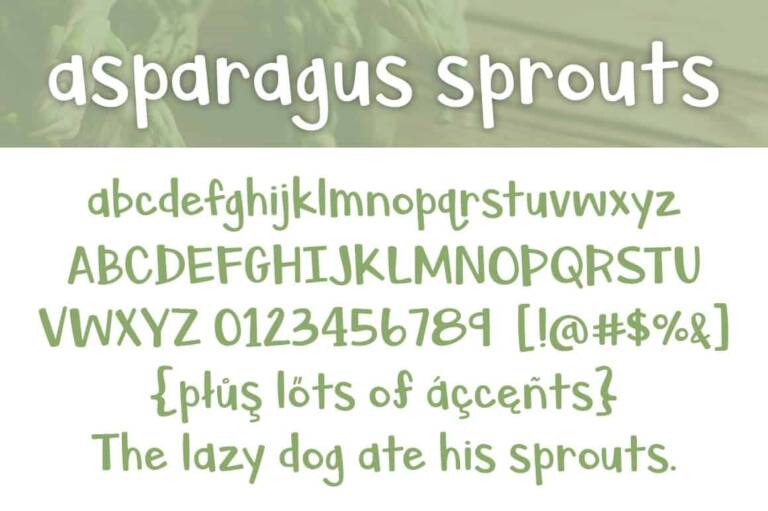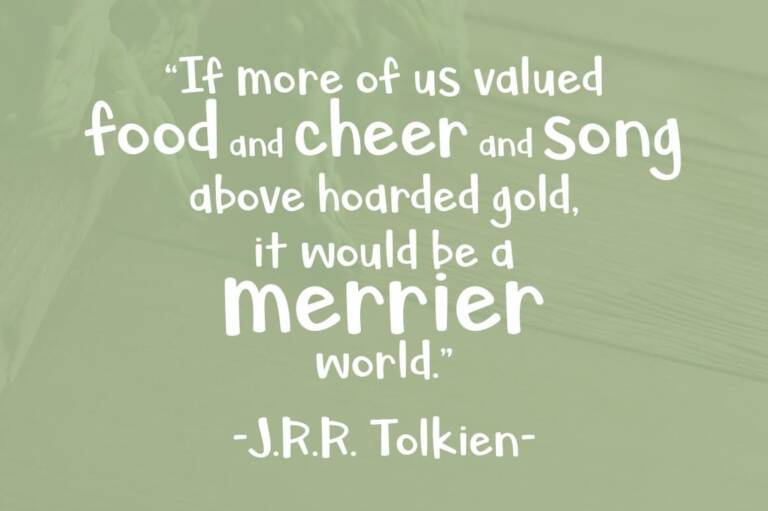
Asparagus Sprouts Font
About The Asparagus Sprouts Font
The Asparagus Sprouts font is a playful handwritten sans-serif font with varying stroke weights created in 2017 by Brittney Murphy Design. With 356 characters Asparagus Sprouts supports most Latin-based languages. This font is great for giving a fun, cartoon feeling to your graphic design projects.
This font is great for giving a fun, cartoon feeling to your graphic design projects.